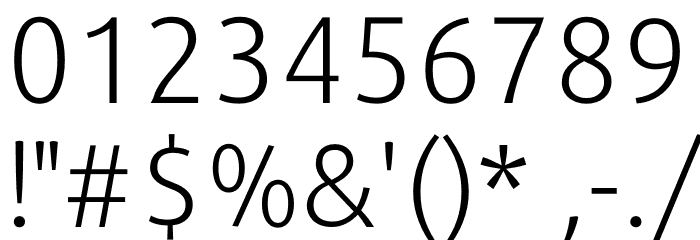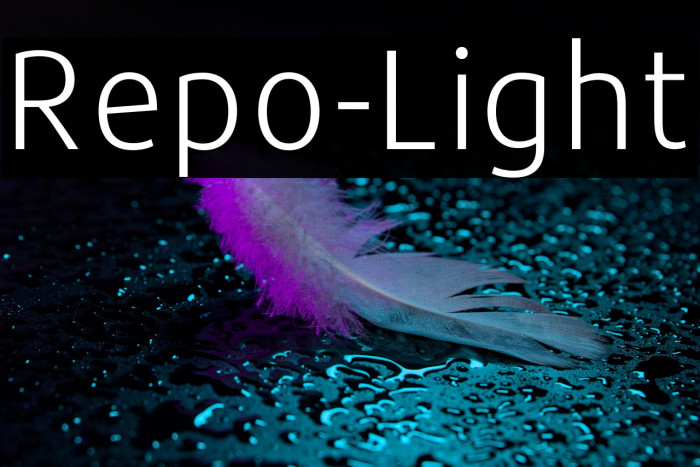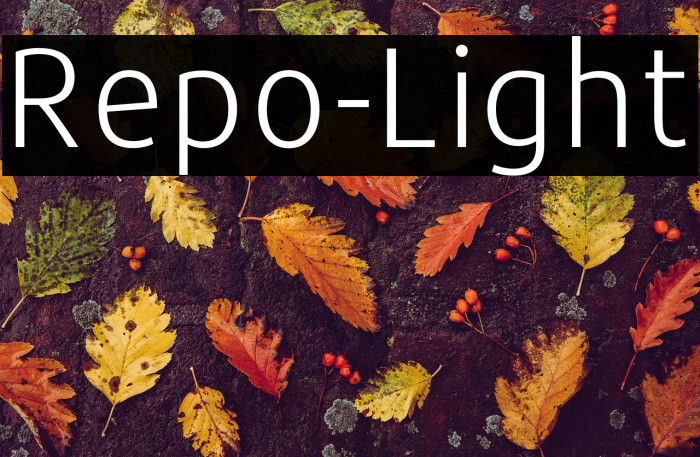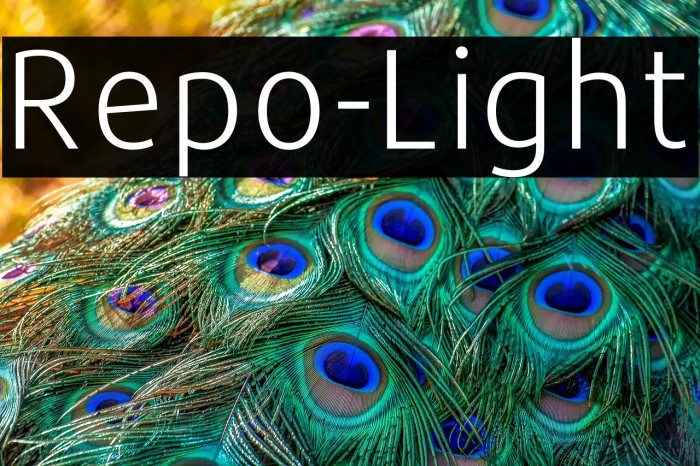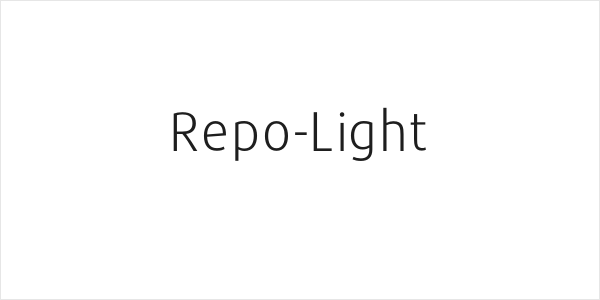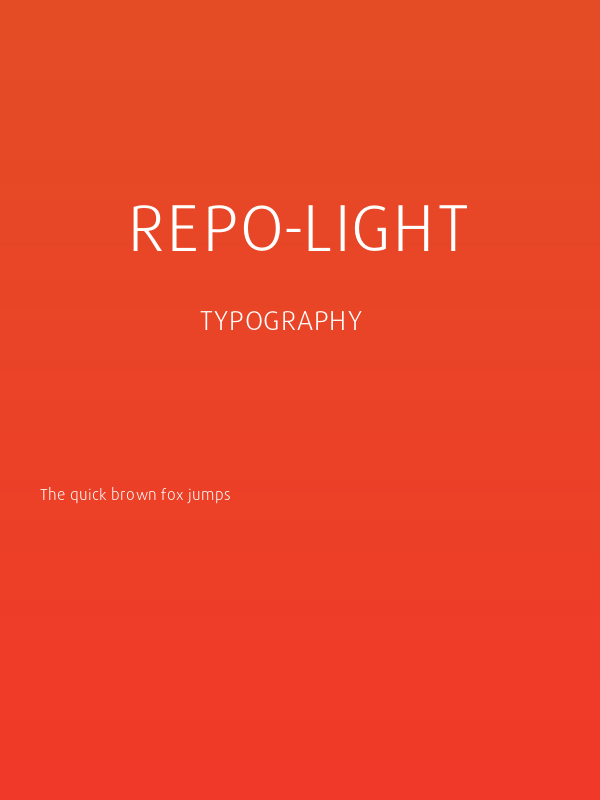
Repo-Light Font
Repo-Light Description
This font features a clean and modern sans-serif design, characterized by its simplicity and clarity. The letters are evenly spaced with a consistent stroke width, providing a harmonious and balanced appearance. The uppercase and lowercase characters are well-proportioned, making it highly legible. The numerals are straightforward and align well with the overall style, while the special characters maintain the same minimalist aesthetic. This font is versatile, suitable for both digital and print media, and can be used in various design contexts due to its neutral and unobtrusive nature.
| Proposed Projects | Ideal for corporate branding, user interfaces, websites, and editorial design. |